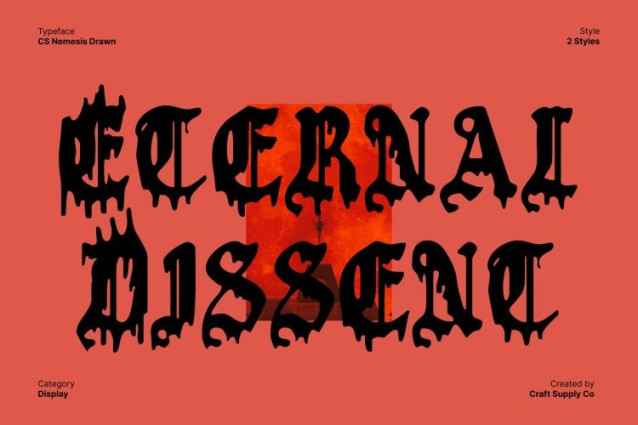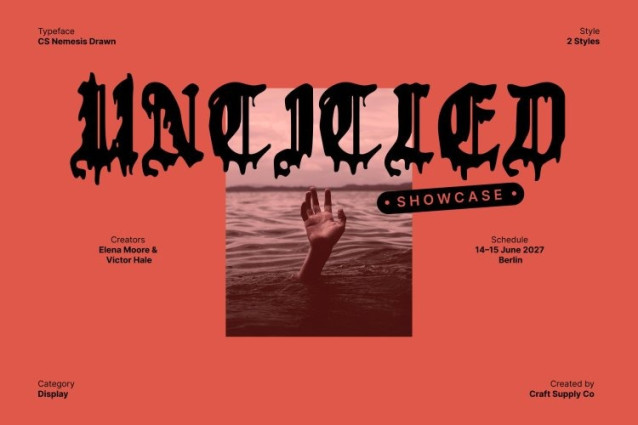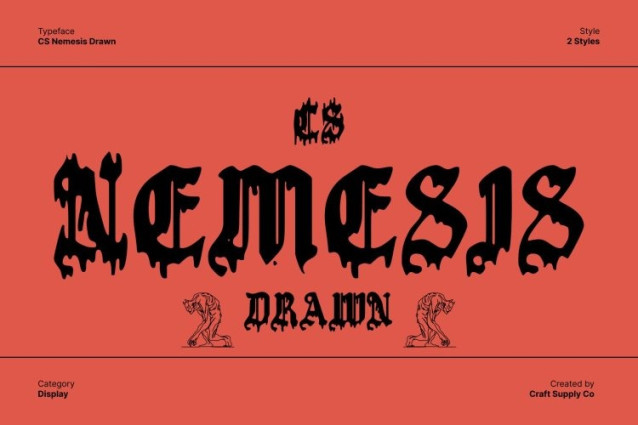
CS Nemesis Drawn Font
CS Nemesis Drawn Font This is a black metal display font defined by razor-sharp edges, spiked extensions, and chaotic, branched strokes. Its aggressive construction captures the raw brutality of extreme metal aesthetics, delivering a visual impact that feels violent, untamed, and uncompromising. Every letter is built to look hostile and intense, making the font instantly commanding and impossible to ignore.
Dark, Mystical, and Gothic Atmosphere
Deeply inspired by occult symbolism, gothic calligraphy, and ritualistic visuals, radiates darkness and mystery. The hand-drawn effect enhances its eerie presence, adding organic irregularities that feel sinister and alive. This texture reinforces the font’s underground spirit, creating an ominous atmosphere that perfectly suits black metal, horror, and dark fantasy themes.
Hand-Drawn Texture with Raw Expression
The drawn texture gives a raw, unpolished character that amplifies its brutality. Uneven strokes and handcrafted imperfections make each letter feel expressive and feral, as if carved or scratched by hand. This artistic chaos adds authenticity and emotional weight, pushing the font beyond digital precision into something more visceral.
Made for Extreme and Underground Design
This is ideal for metal band logos, album covers, concert posters, horror titles, and underground branding. It is not designed to be subtle it is built to dominate. Bold, aggressive, and unapologetically dark, this font delivers a haunting visual force that embodies rebellion, intensity, and the true spirit of extreme music culture.